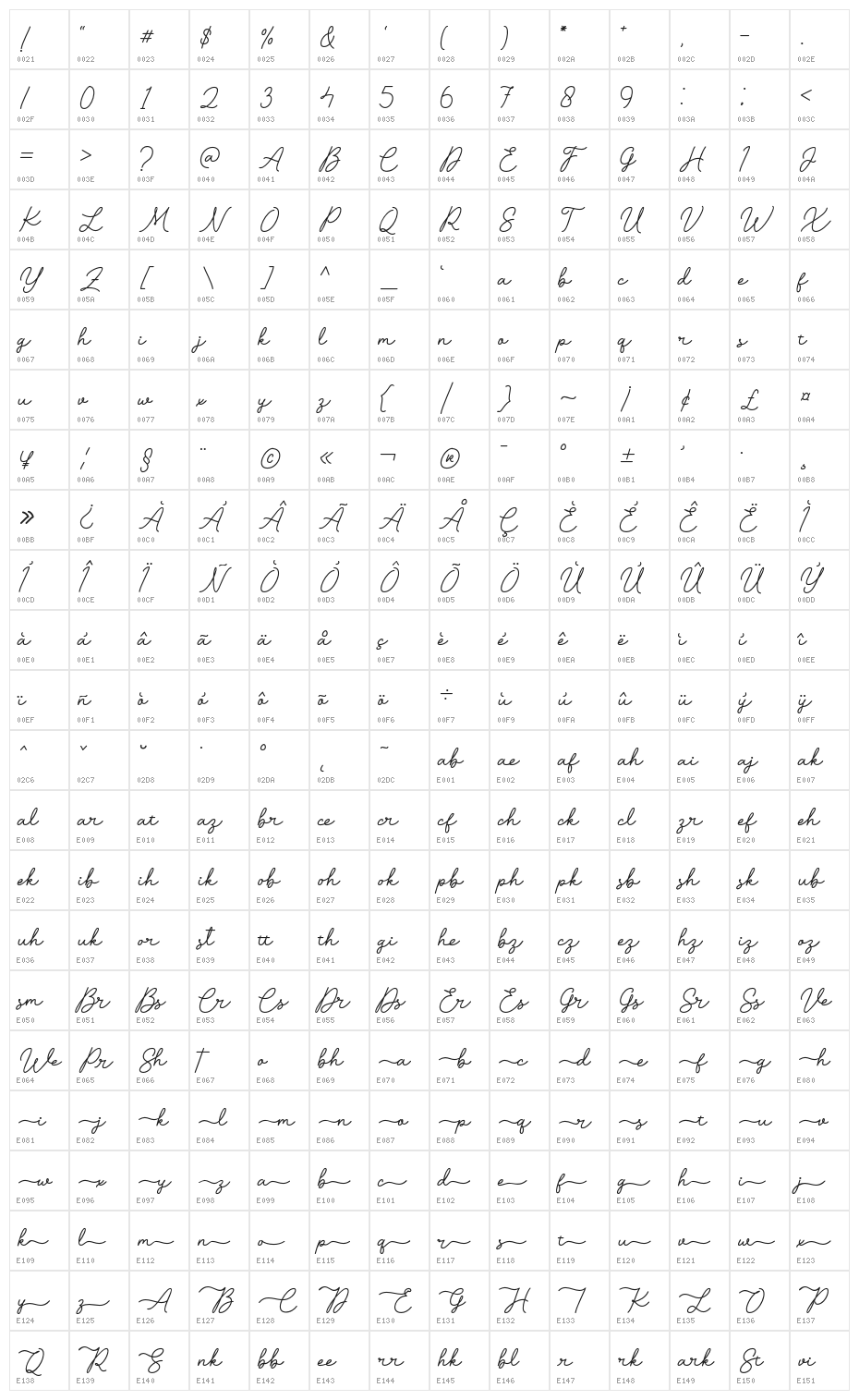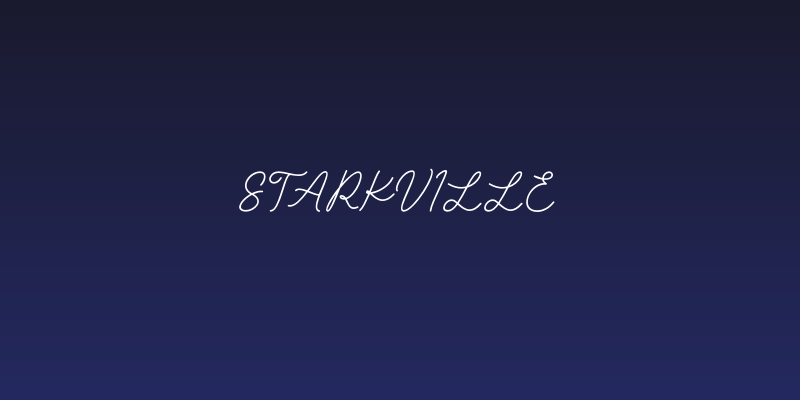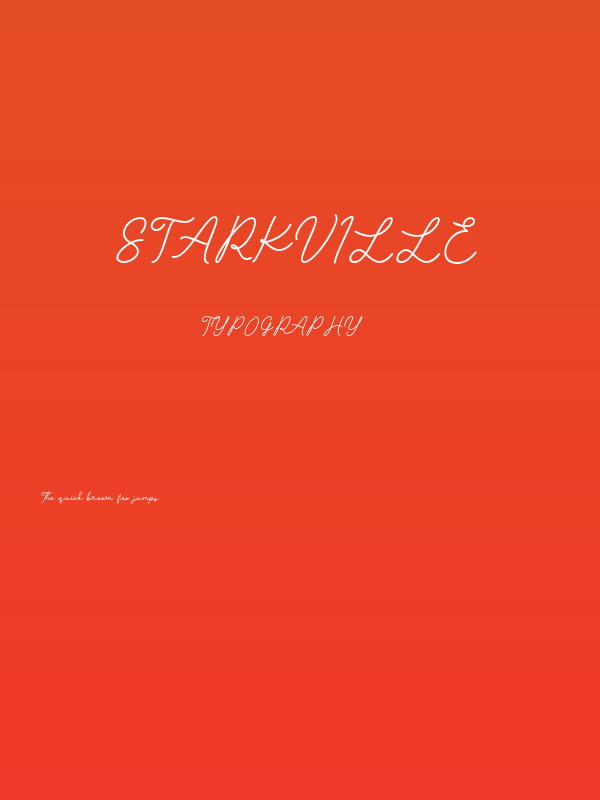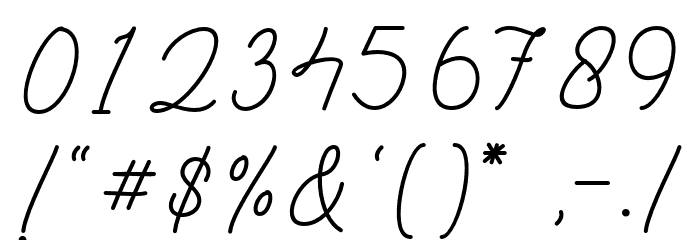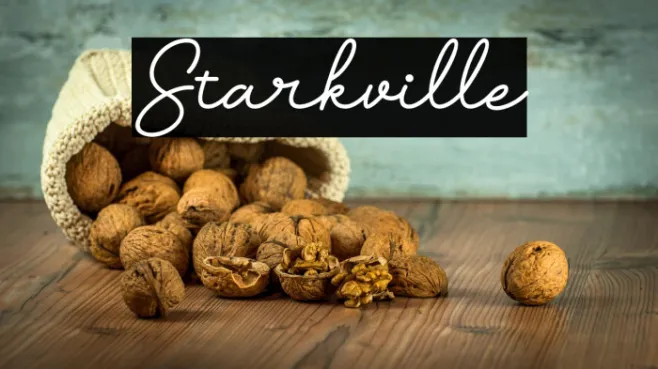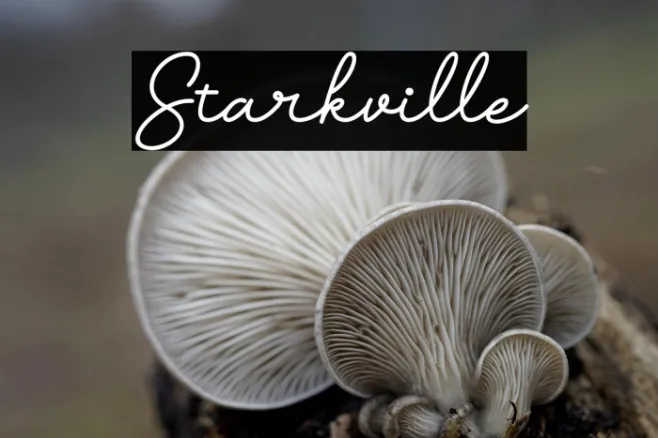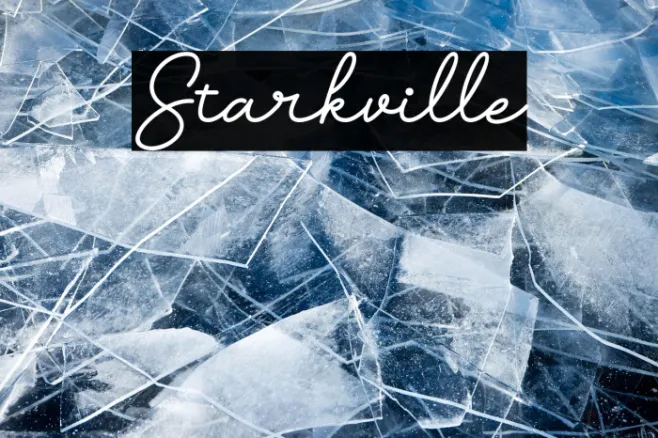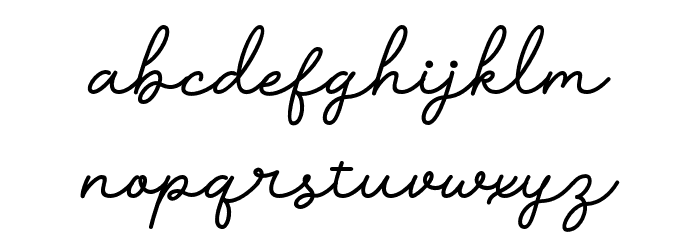
Starkville Font
Starkville Description
This font exudes a casual elegance with its fluid, cursive style. The letters are connected in a smooth, flowing manner, reminiscent of traditional handwriting. The uppercase characters maintain a consistent height, while the lowercase letters exhibit a slight slant, adding to the font's dynamic appearance. The numerals are well-integrated, matching the overall cursive theme. Special characters are thoughtfully designed to complement the alphabet, ensuring a cohesive look across all text. This font is perfect for projects that require a personal touch, such as invitations, greeting cards, or branding materials.
| Overall Style | Elegant, Handwritten |
| Use Case | Logos, Invitations, Decorative text |
| Proposed Projects | Ideal for invitations, greeting cards, personal branding, and decorative projects. |